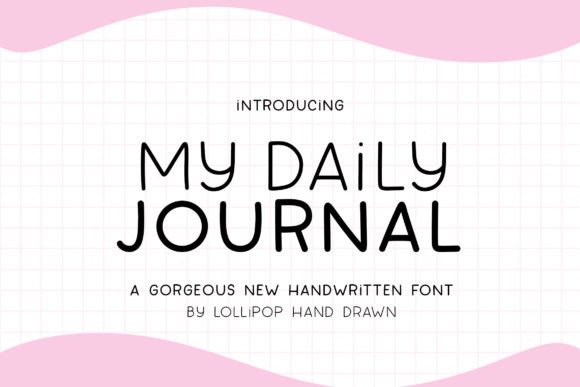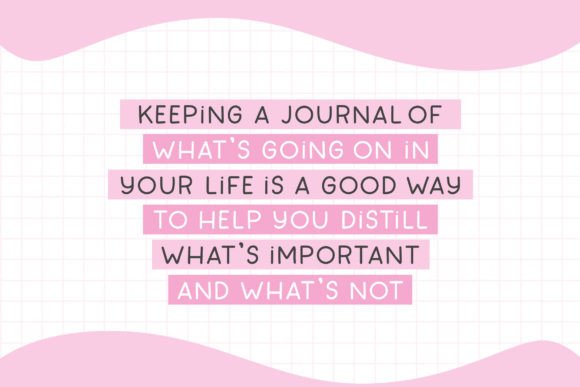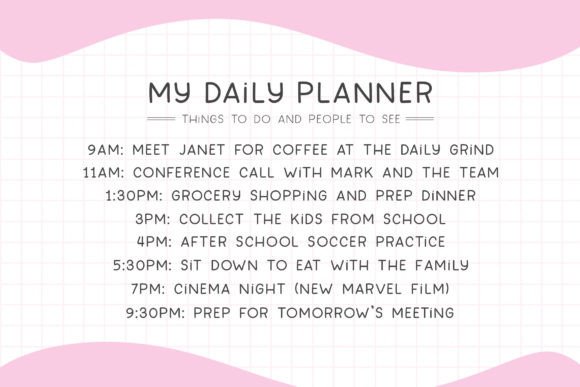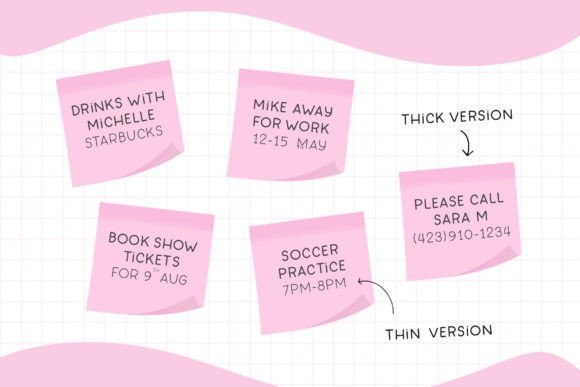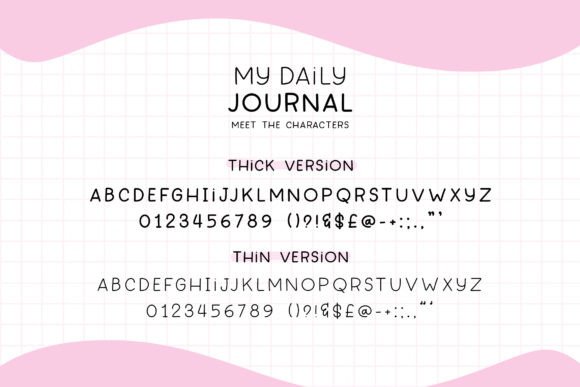
My Daily Journal Font
About My Daily Journal Font
My Daily Journal is an adorable handwritten font. Whether you’re using it for crafts, digital design, presentations, or making greeting cards, this font has the potential to become your favorite go-to font, no matter the occasion!